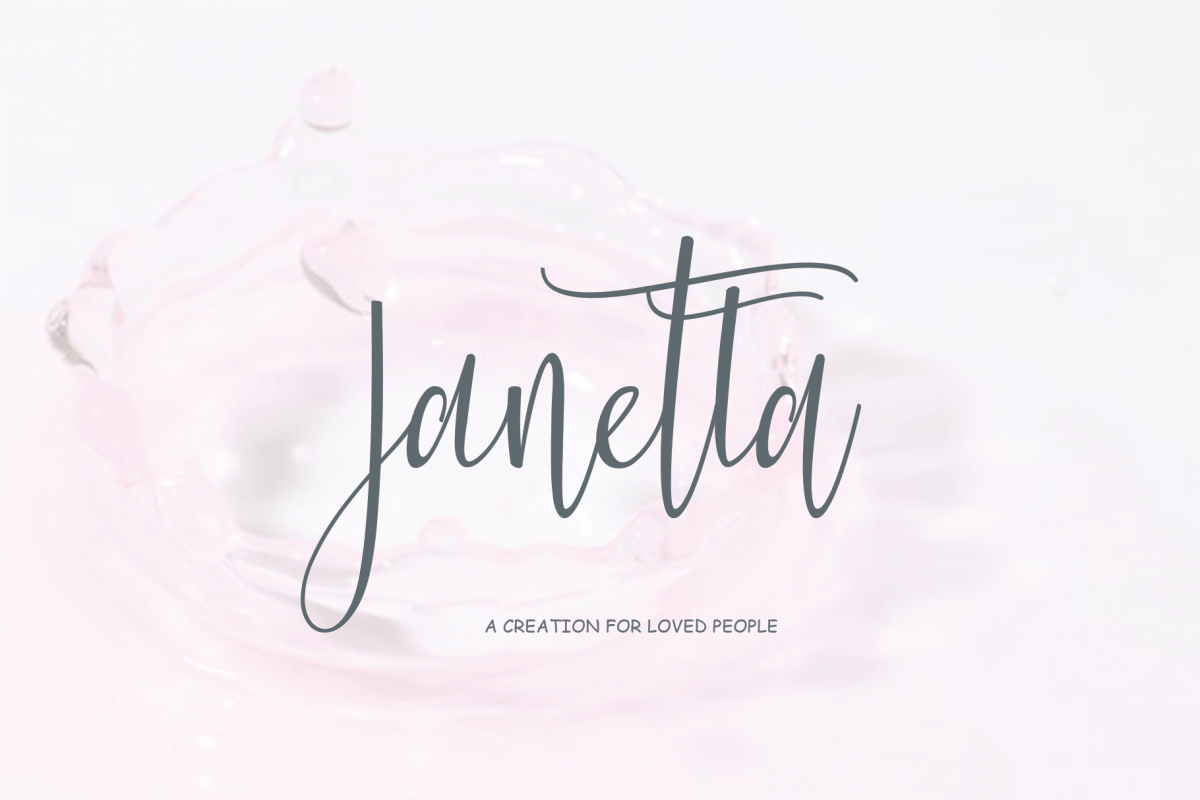
Janetta
Thank you for taking your time to see Janetta fonts !!! Janetta font is very tiring in its work but now you only need a moment to make various crafts that you are working on, which allows you to work on various types of your typography needs to achieve a beautiful hand made in a short time. With  some forms of start and end of lowercase letters are interesting,  Janetta  fonts are very suitable for your needs in making logos, invitations, cards, product packaging, headers, and whatever needs you want.
You will be very satisfied with the presence of attractive replacement letters, where you can make according to the form you expect ,,  Janetta  fonts are equipped with several lowercase sets including swash that you can use to realize a handwork that matches your imagination.